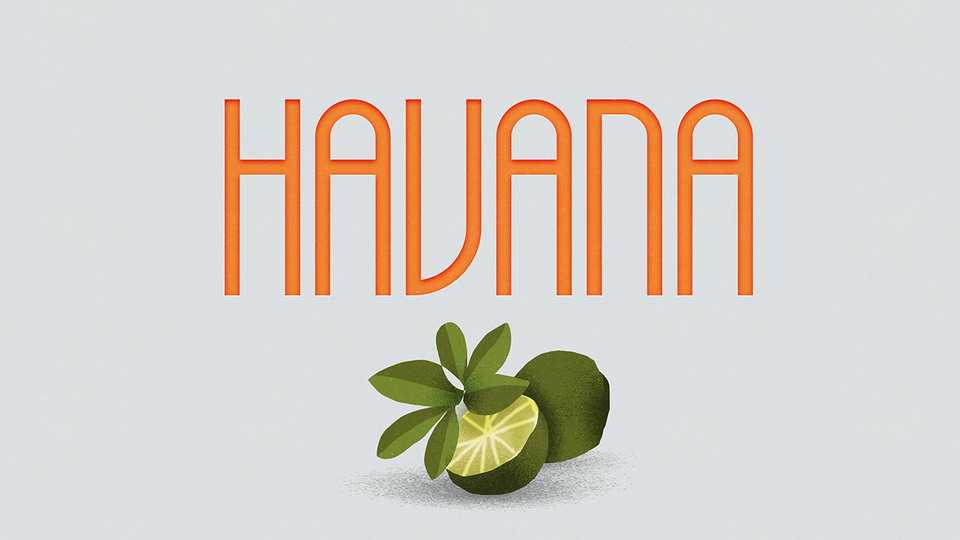
Download Havana typeface, an amazing sans serif font family modular structure in four styles. Formerly known as Colibri (hummingbird, in Spanish), it is part of first-ever branding project, commissioned by a friend who owned a bird shop.
Designer: Antonio Rodrigues Jr